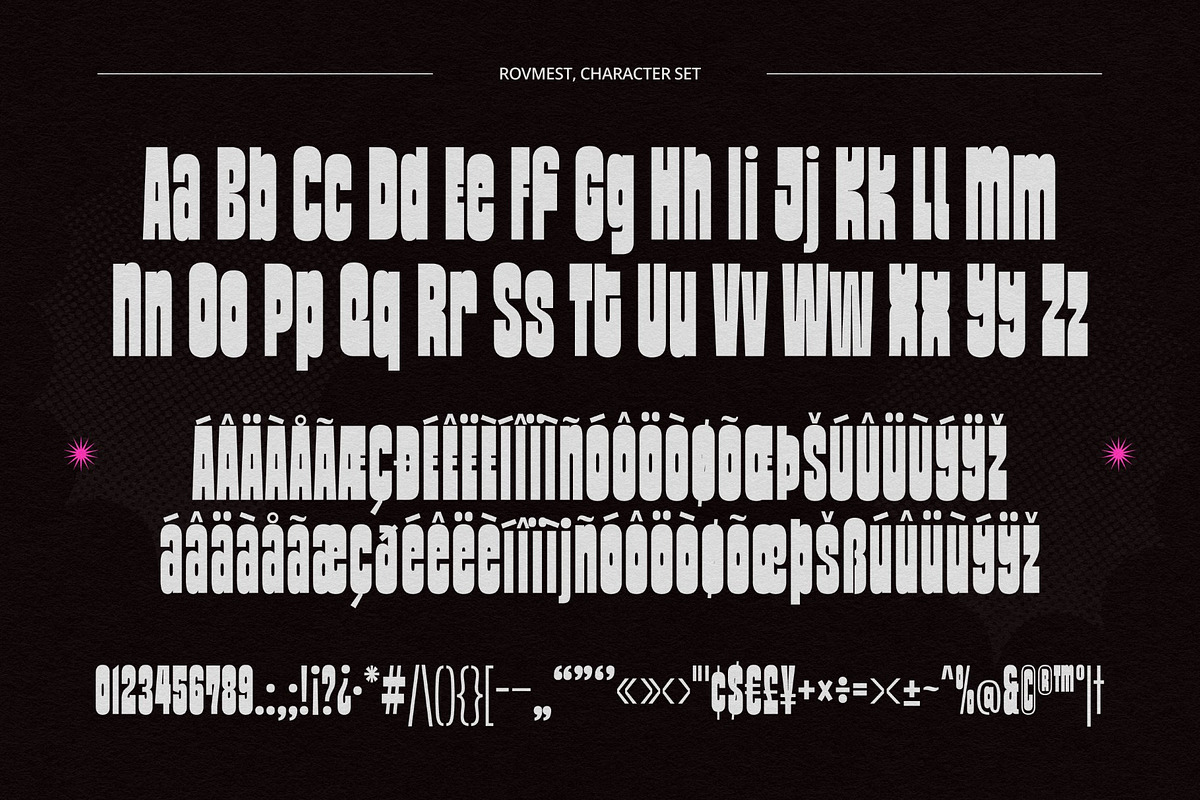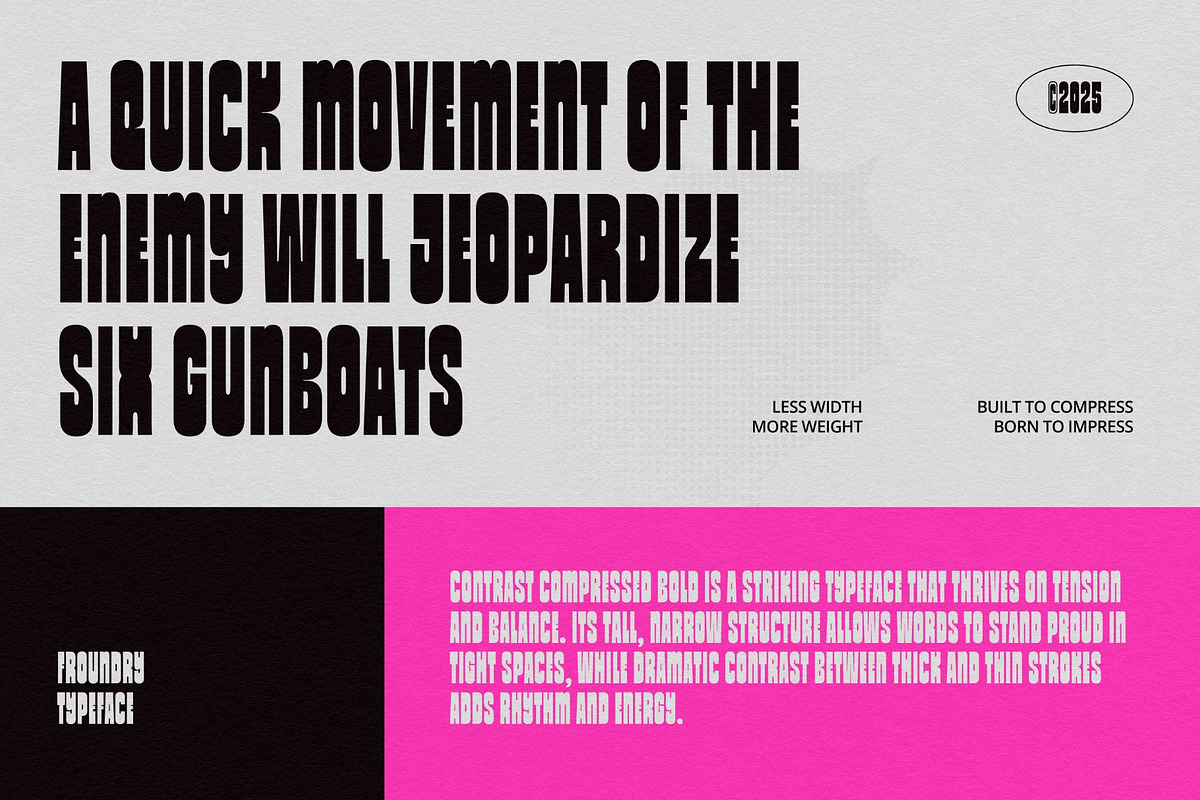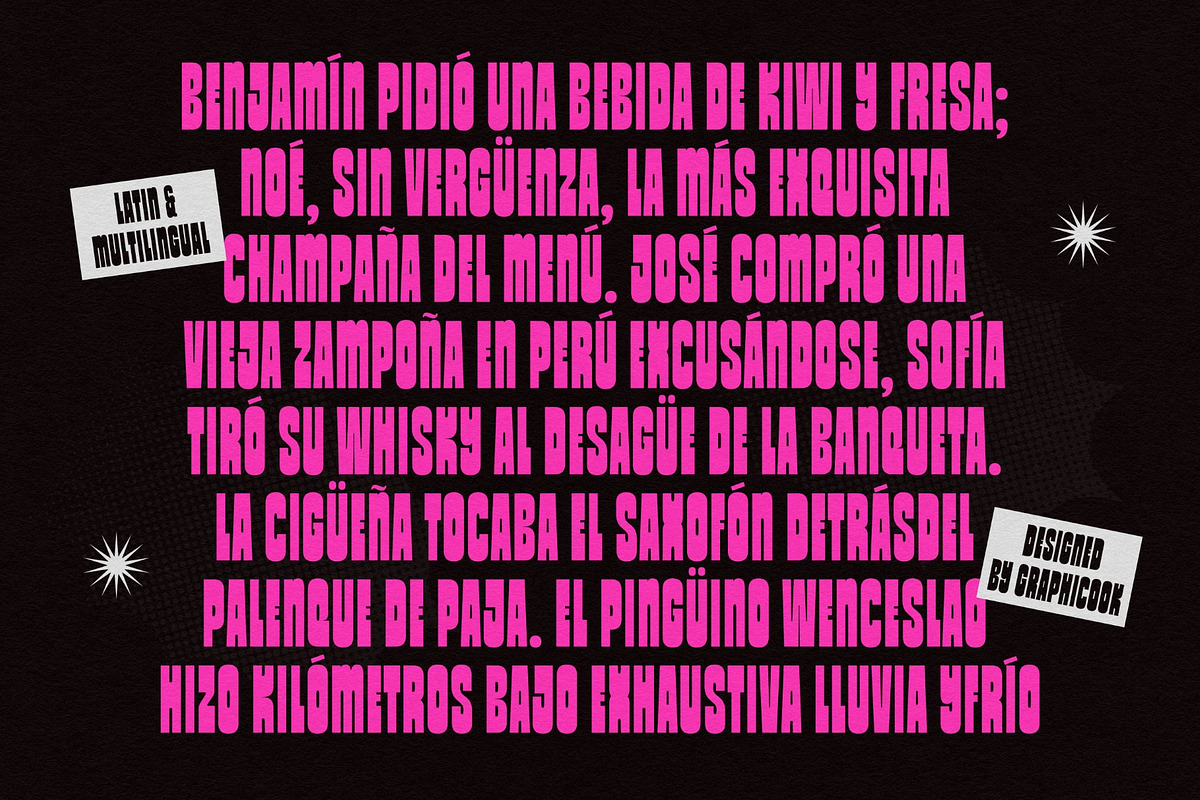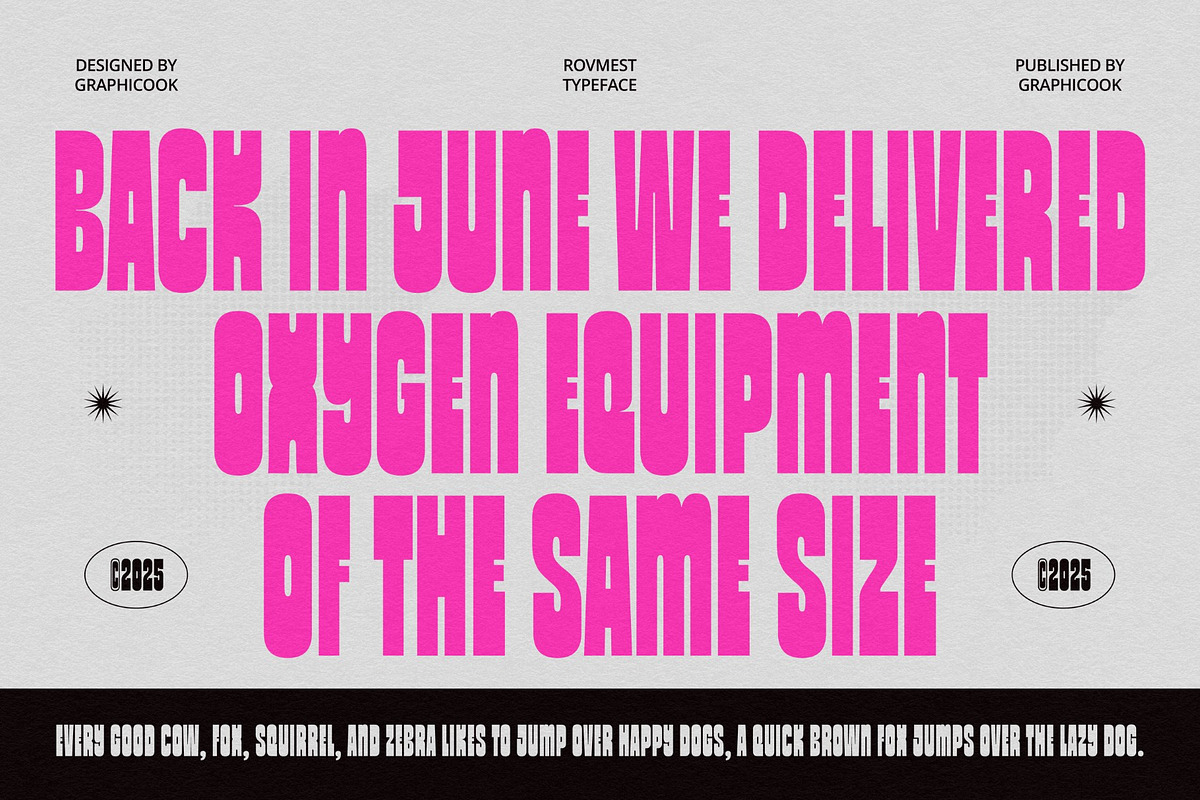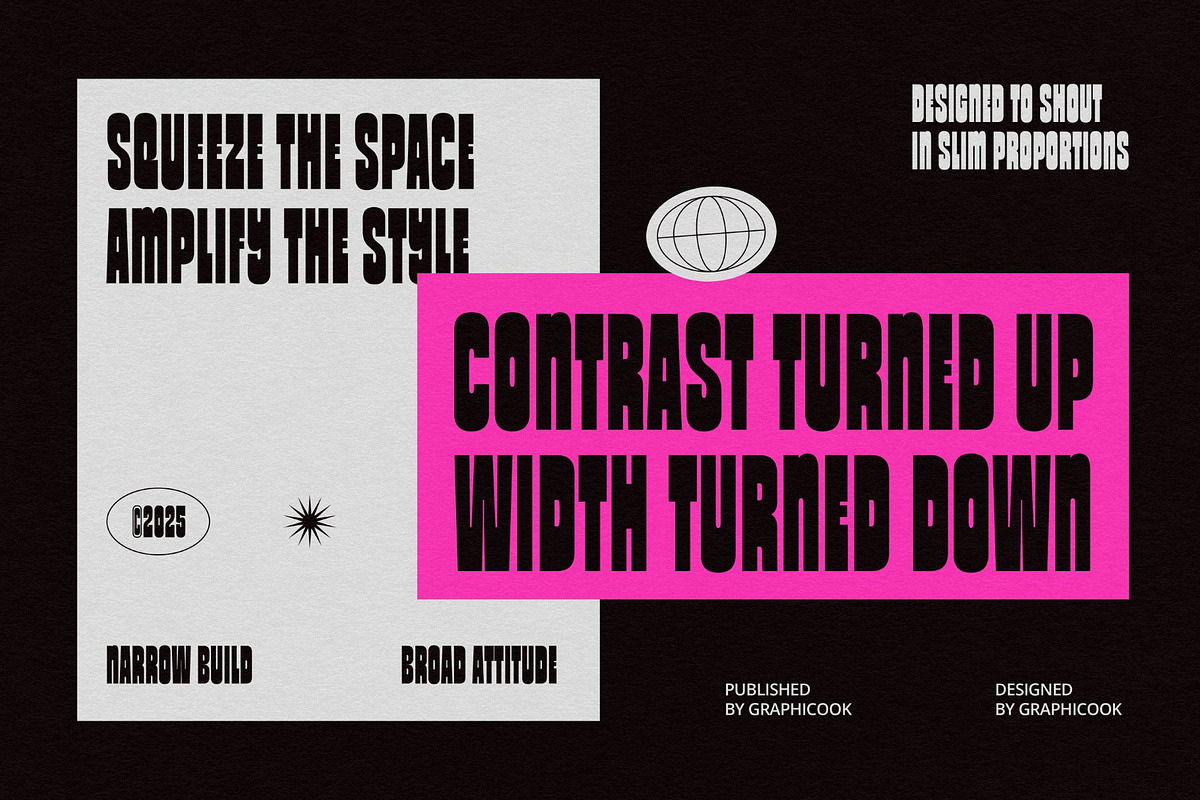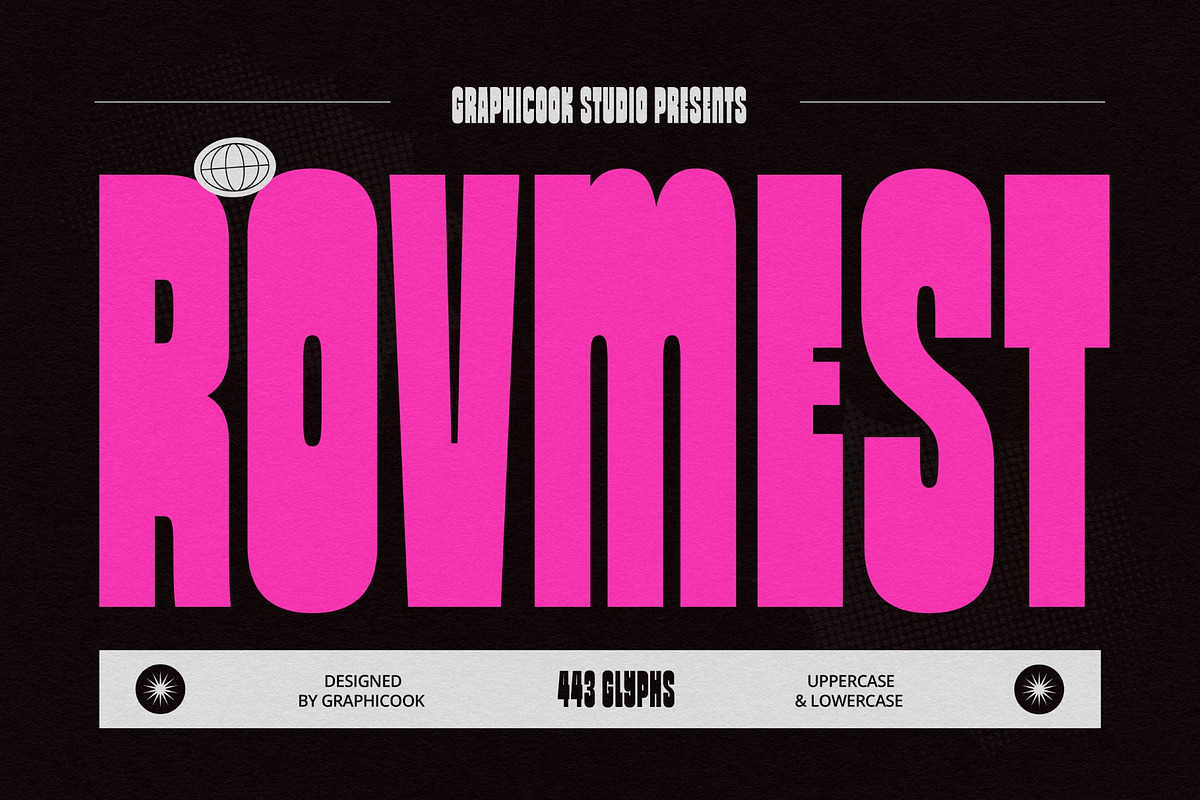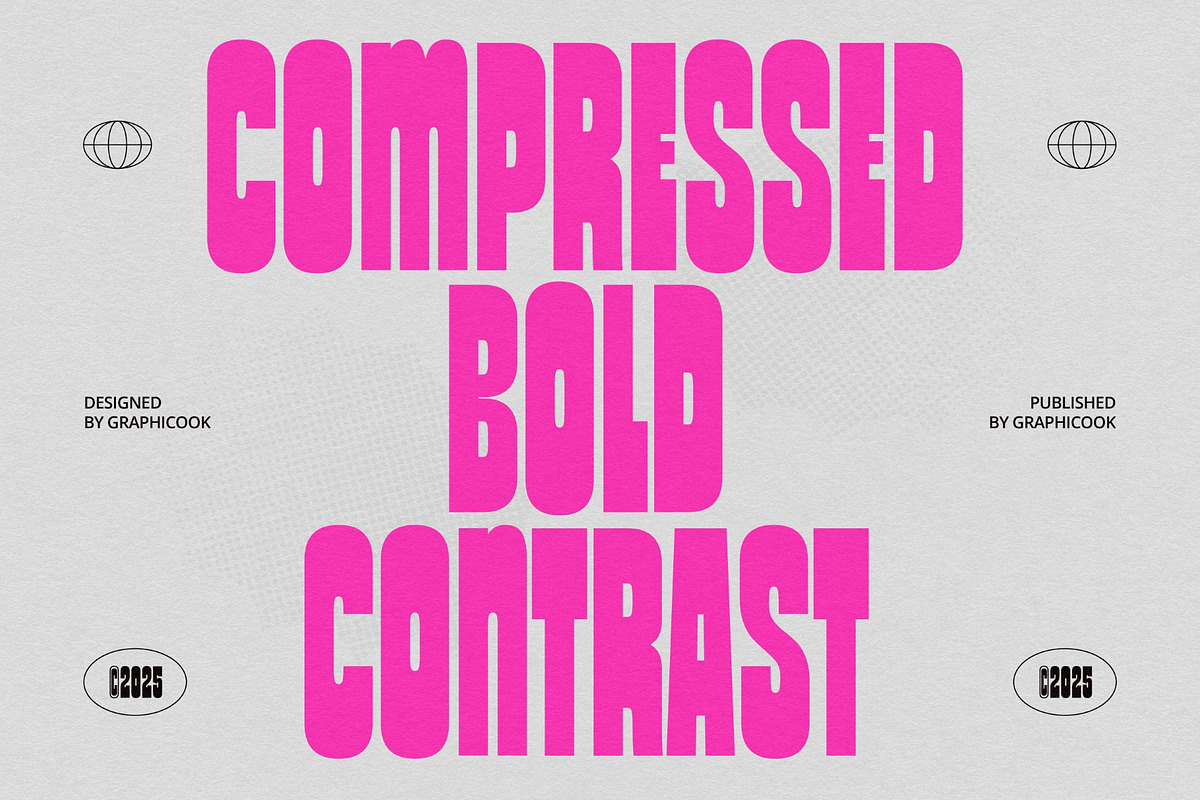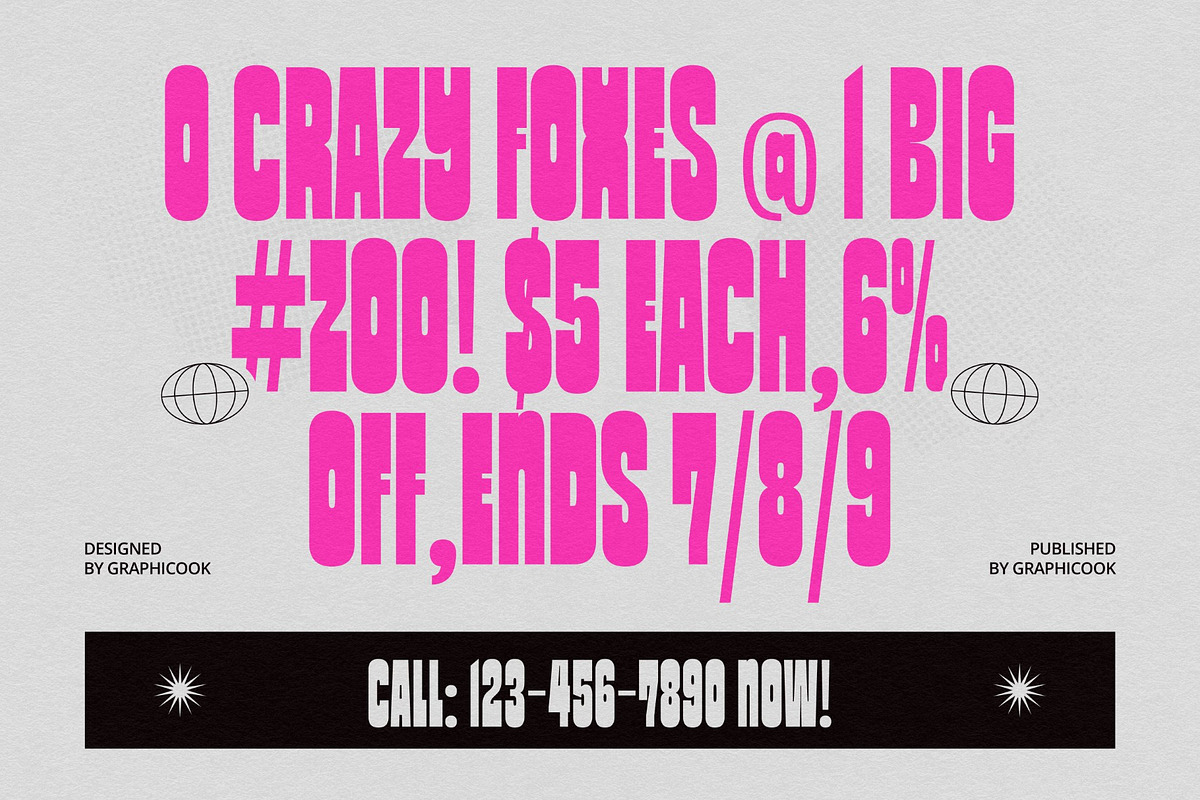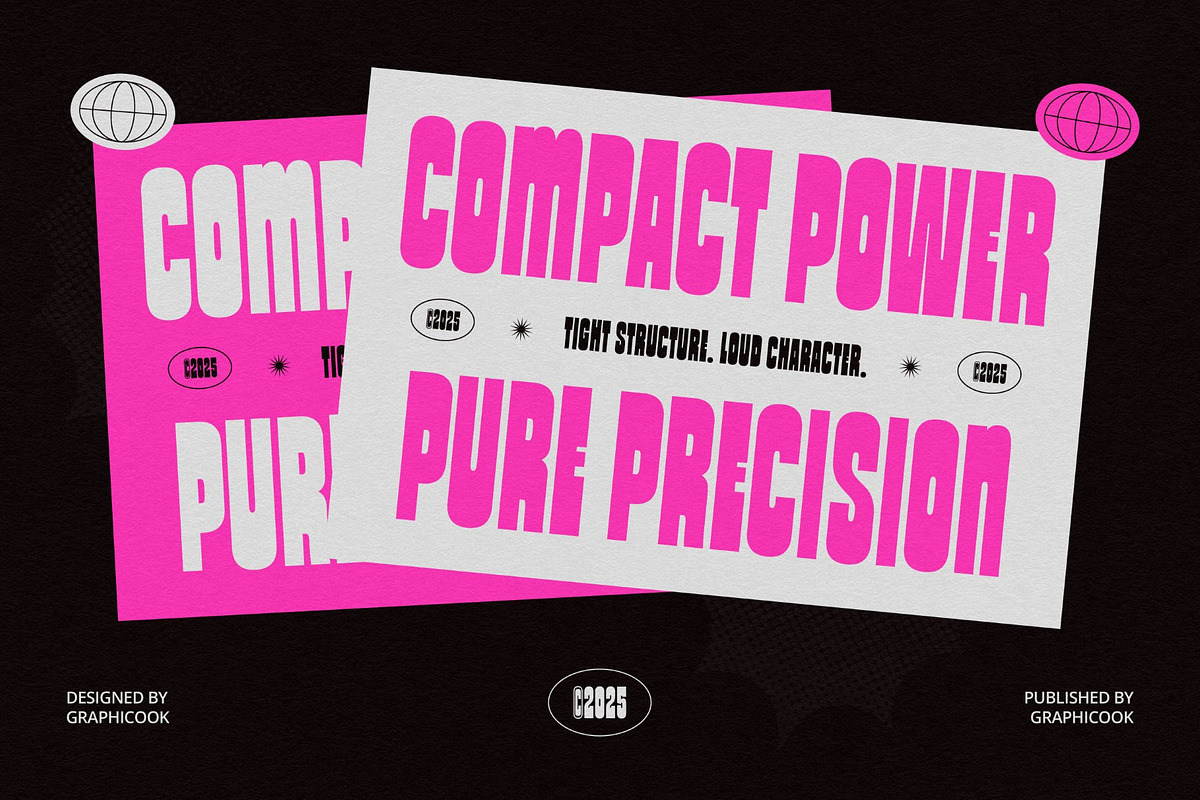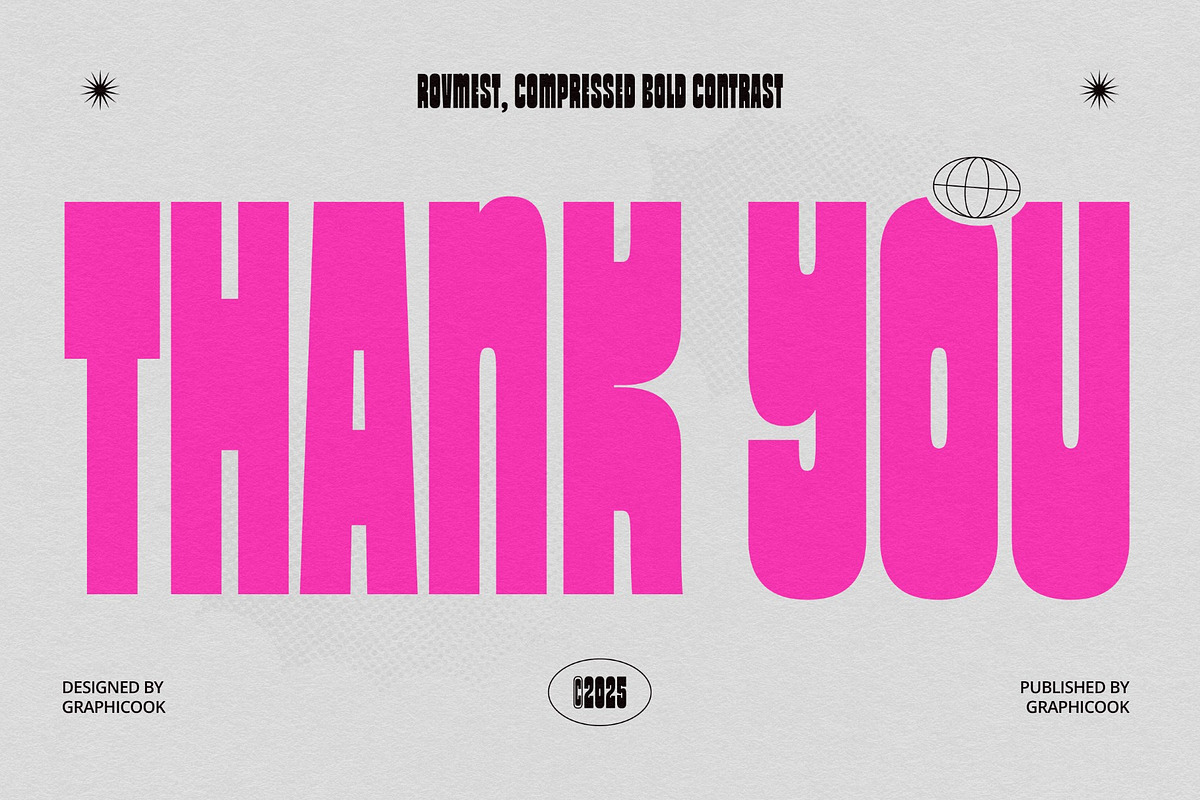
Rovmest
Rovmest is an ultra-bold display font with tall, condensed letterforms that deliver a strong, striking presence. Ideal for headlines and designs that need to grab attention with confidence and power
It is perfect for headlines, logotypes, magazines, packaging, quotes, movies, games, cover albums, book covers, and flyers, it's a perfect solution for creating eye-catching designs that stand out in any context.